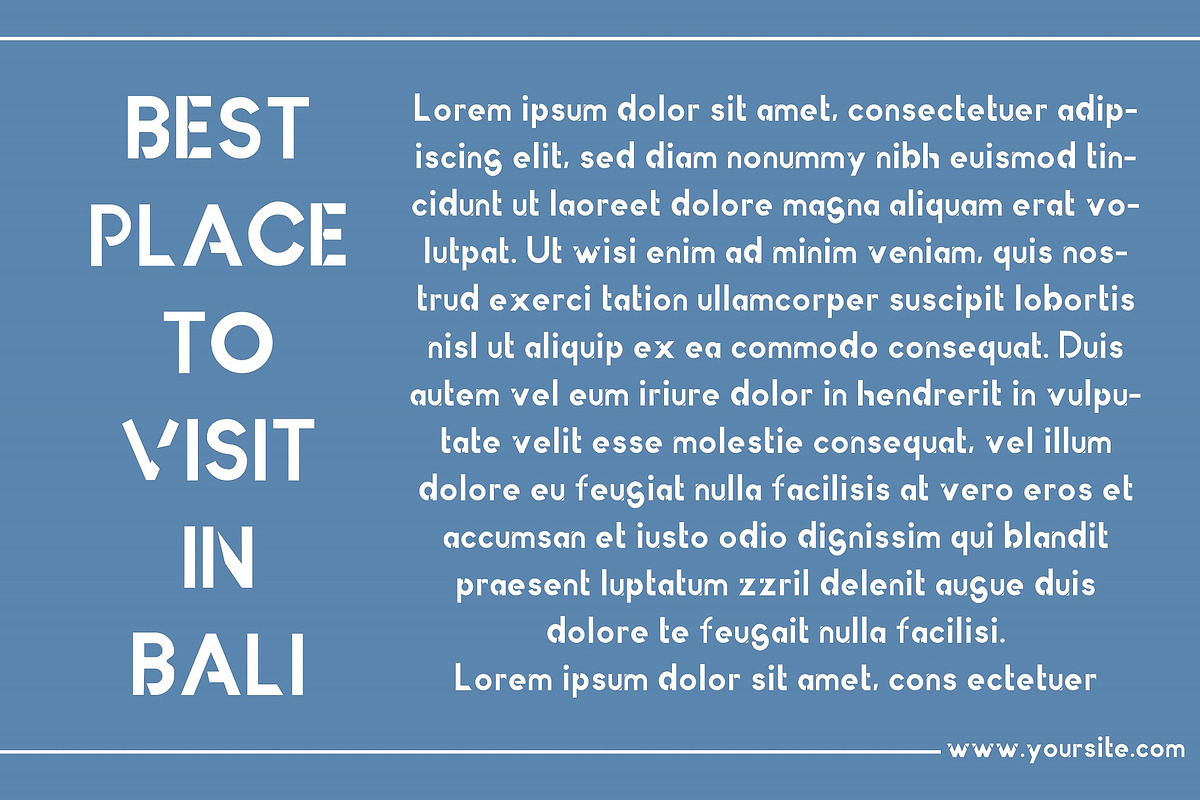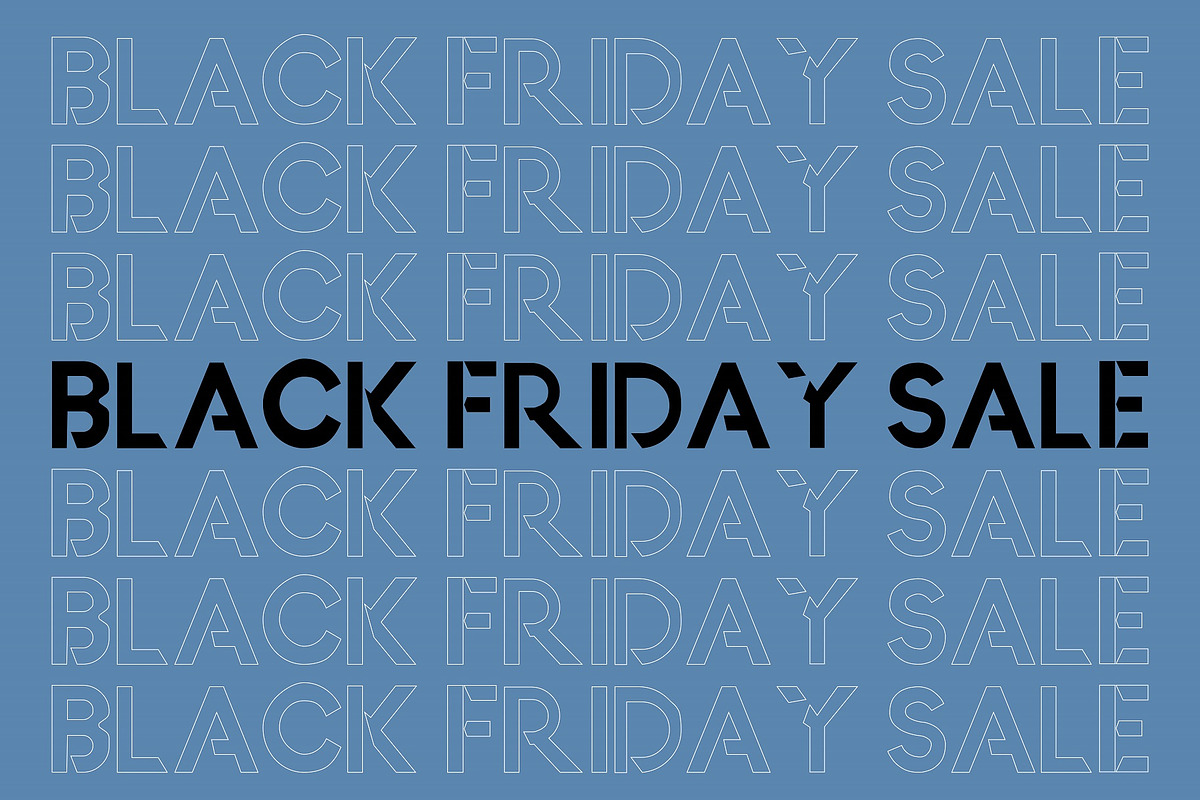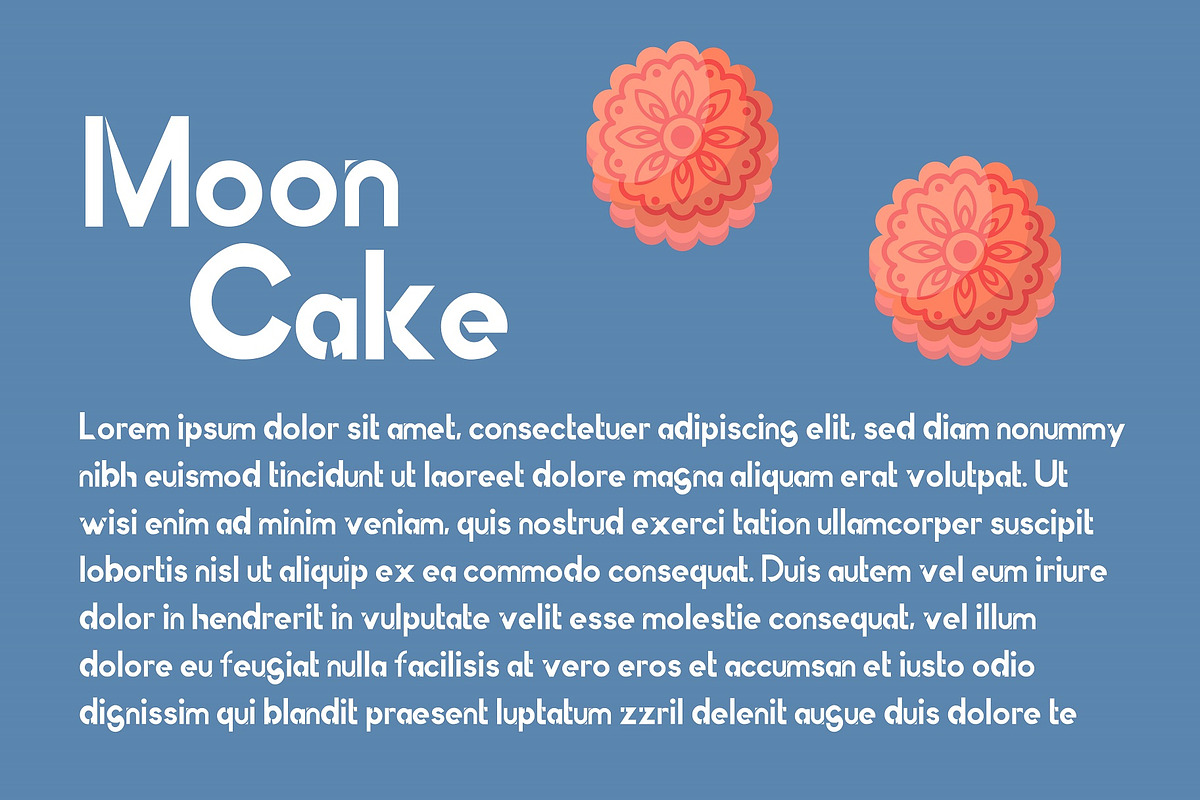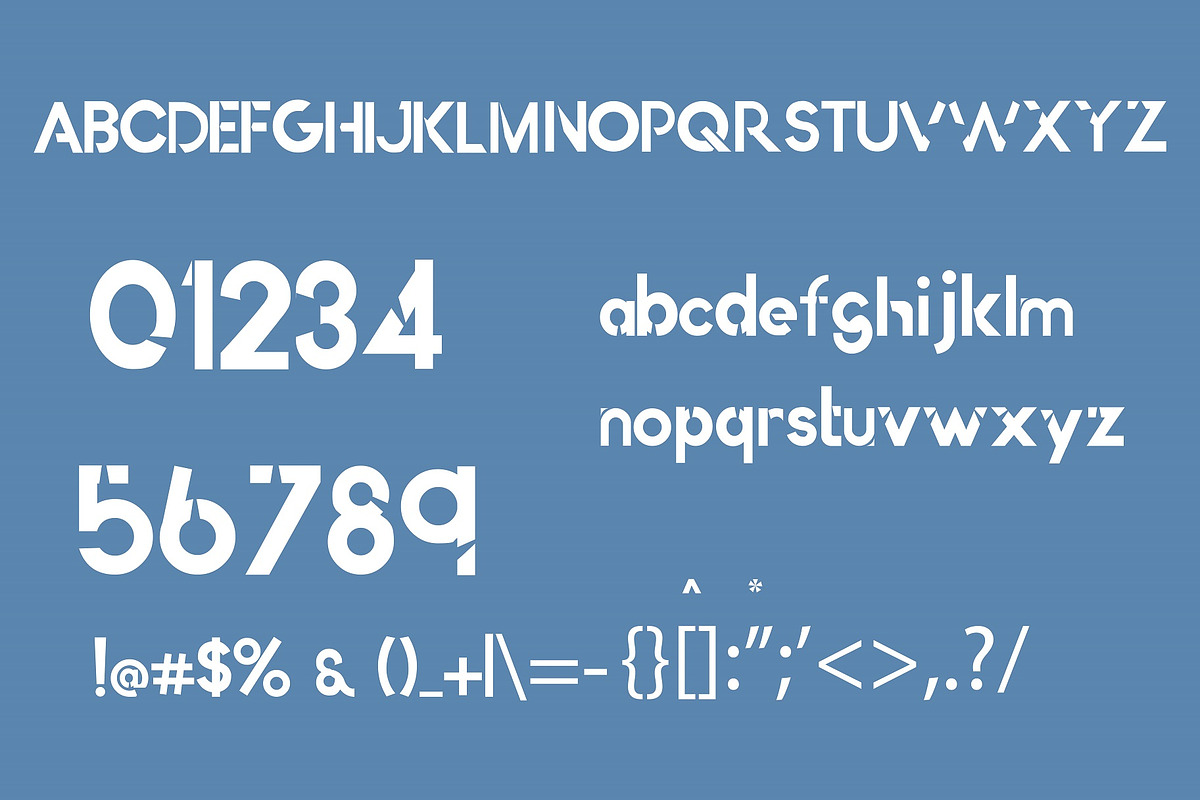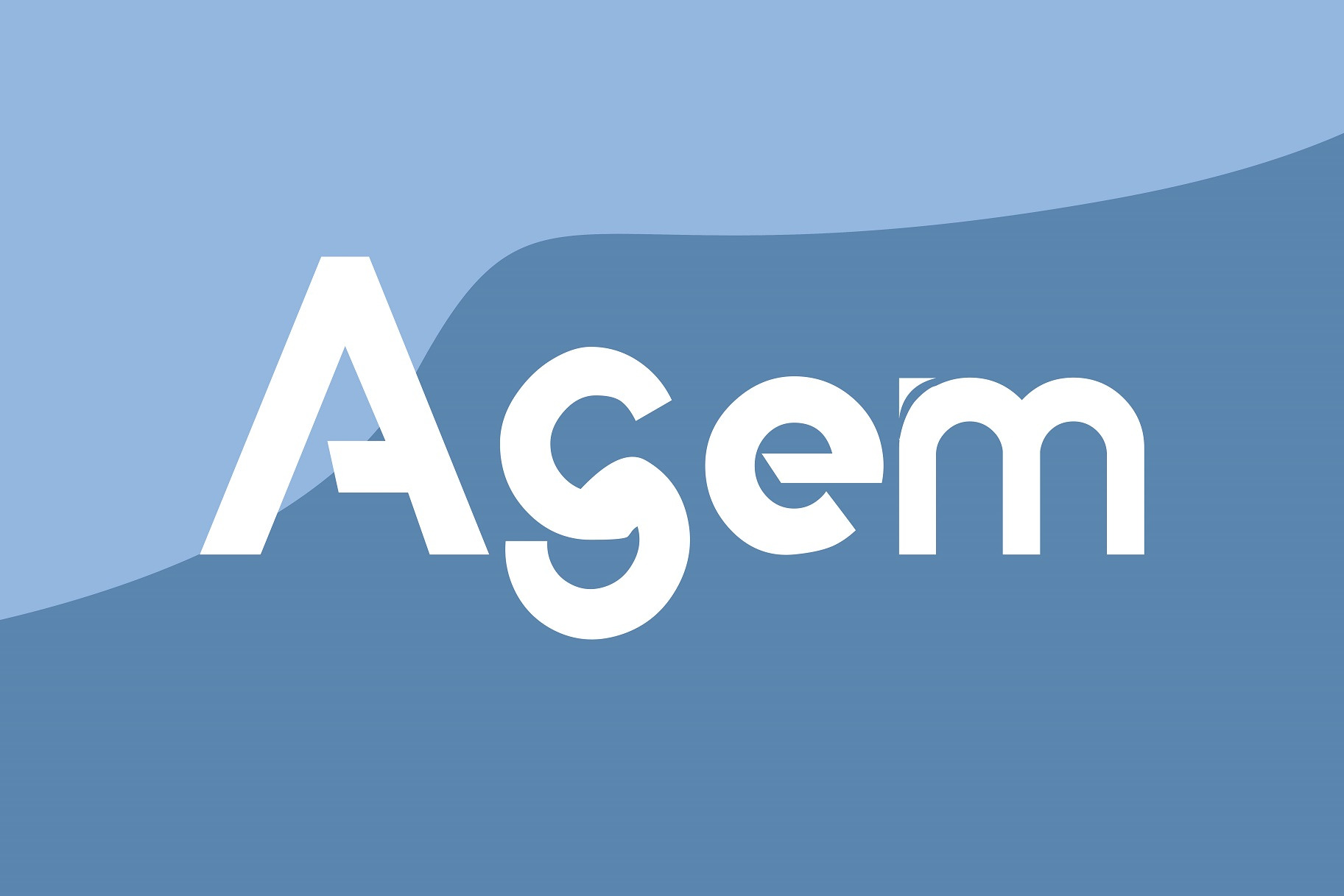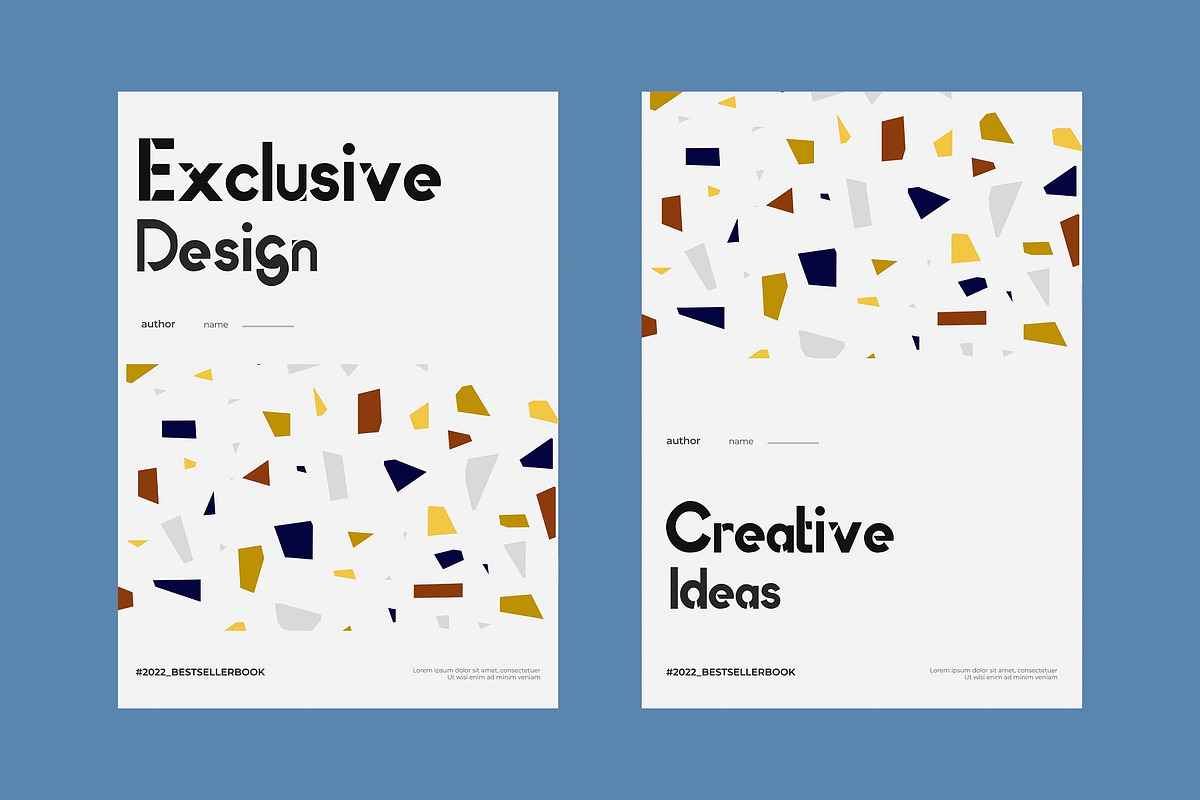
Agem Typeface
AGEM - is a fun and simple hand-lettered sans serif font! This font would be perfect for the web, party invitations, quotes, products, logos, packaging, book cover, and more.
• Uppercase & Lowercase
• Includes Numbers and Basic Punctuation
*Currently supports basic English characters only